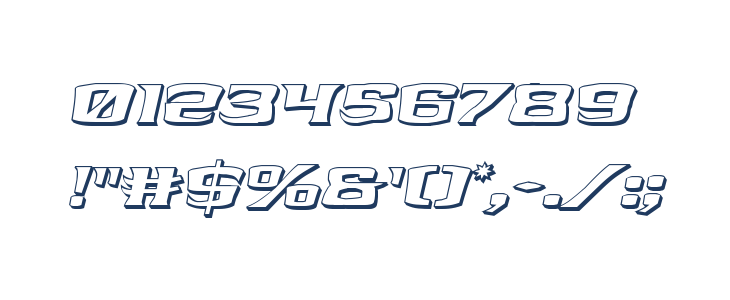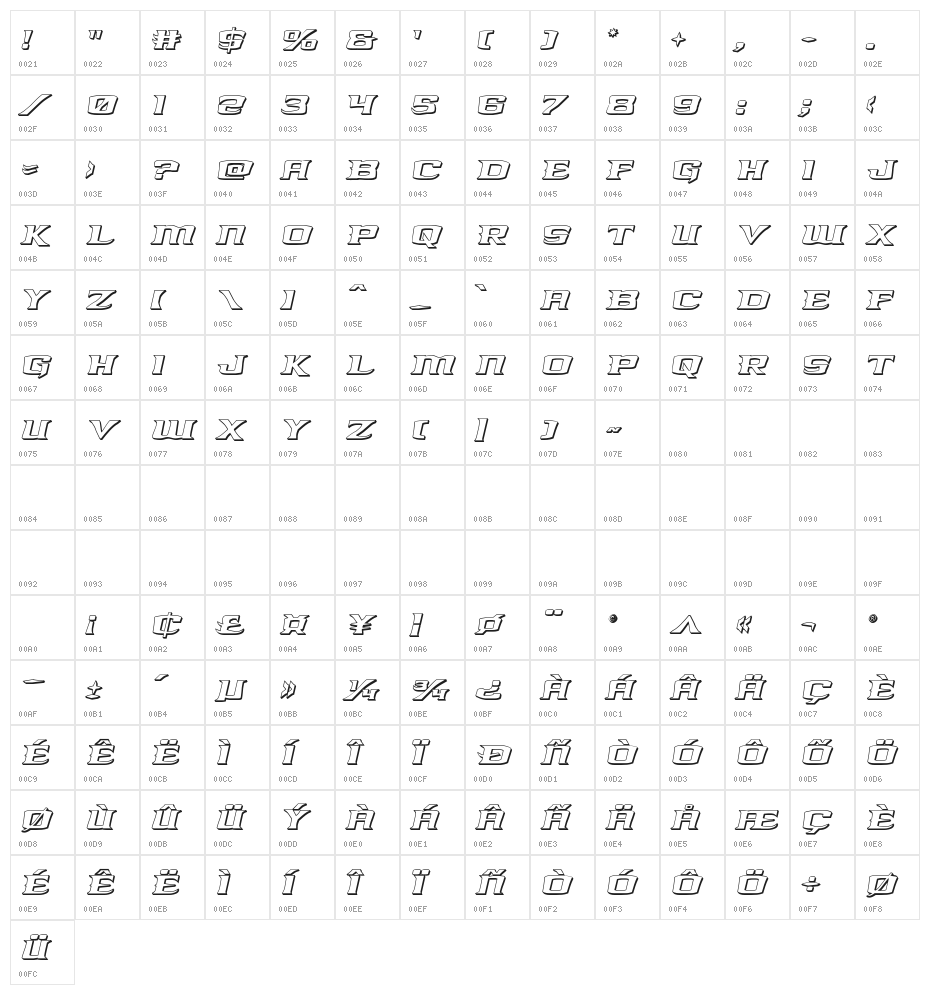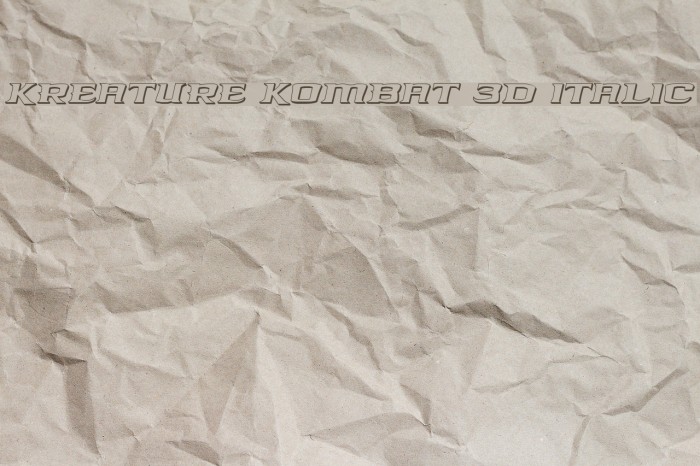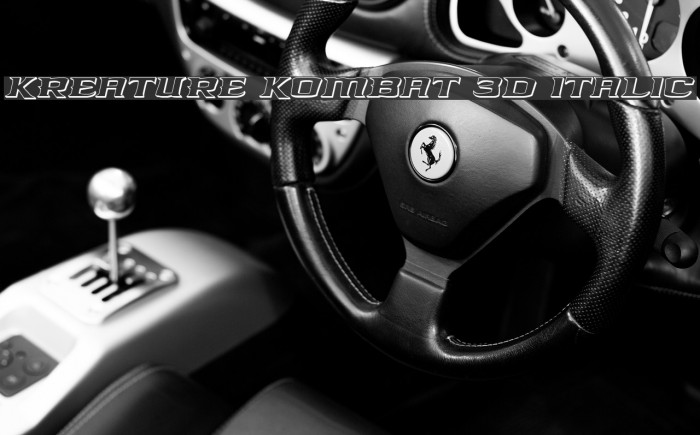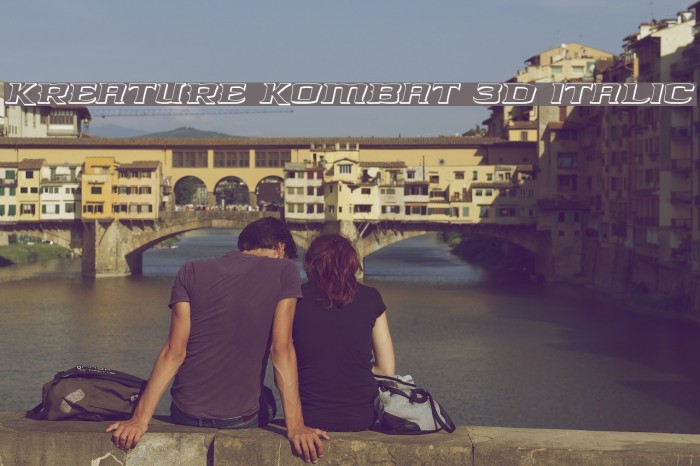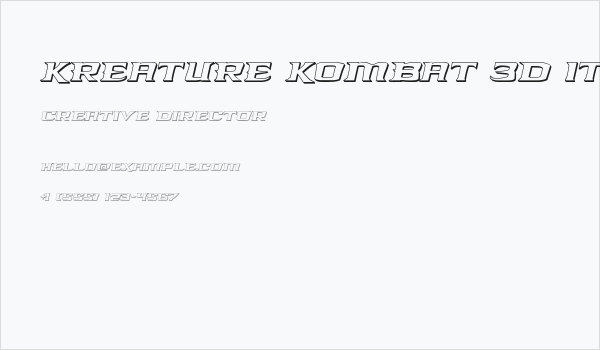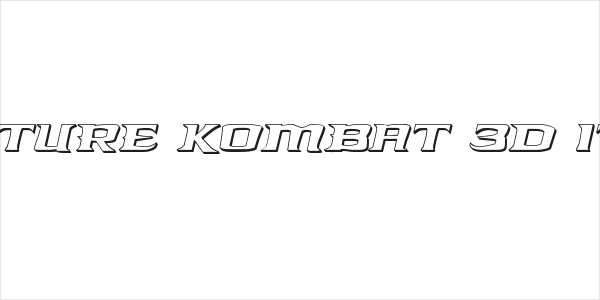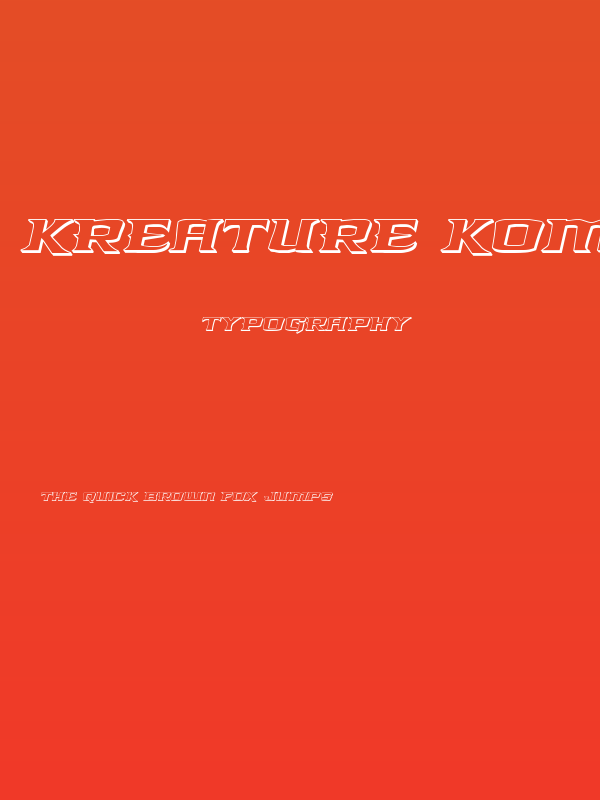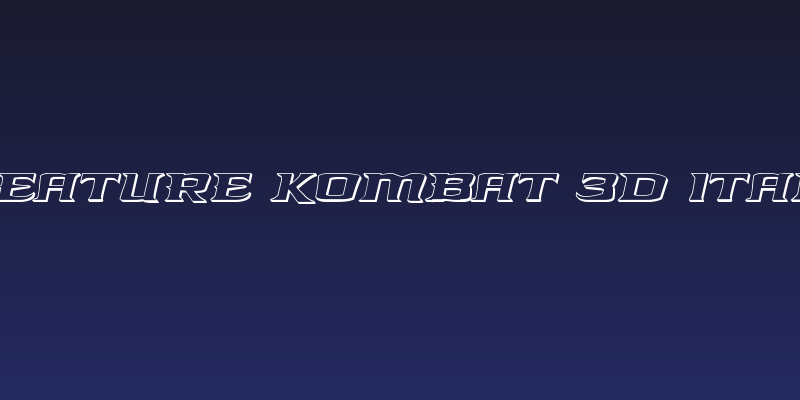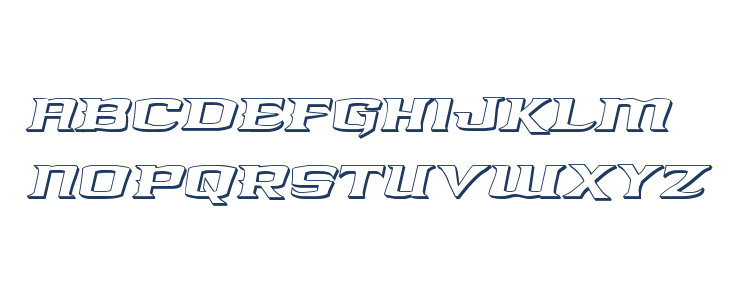
Kreature Kombat 3D Italic Font
Kreature Kombat 3D Italic Description
This font features a bold, dynamic style with a 3D effect that gives it a striking appearance. The characters are italicized, adding a sense of motion and energy. Each letter is outlined, enhancing the 3D illusion and making the text stand out. The design is modern and futuristic, with sharp angles and a slightly condensed form. The numerals and special characters follow the same stylistic approach, ensuring consistency across all glyphs. This font is ideal for projects that require a bold and eye-catching display, such as video game titles, posters, or branding for tech-related products.
Proposed ProjectsIdeal for video game titles, tech branding, posters, and dynamic displays.